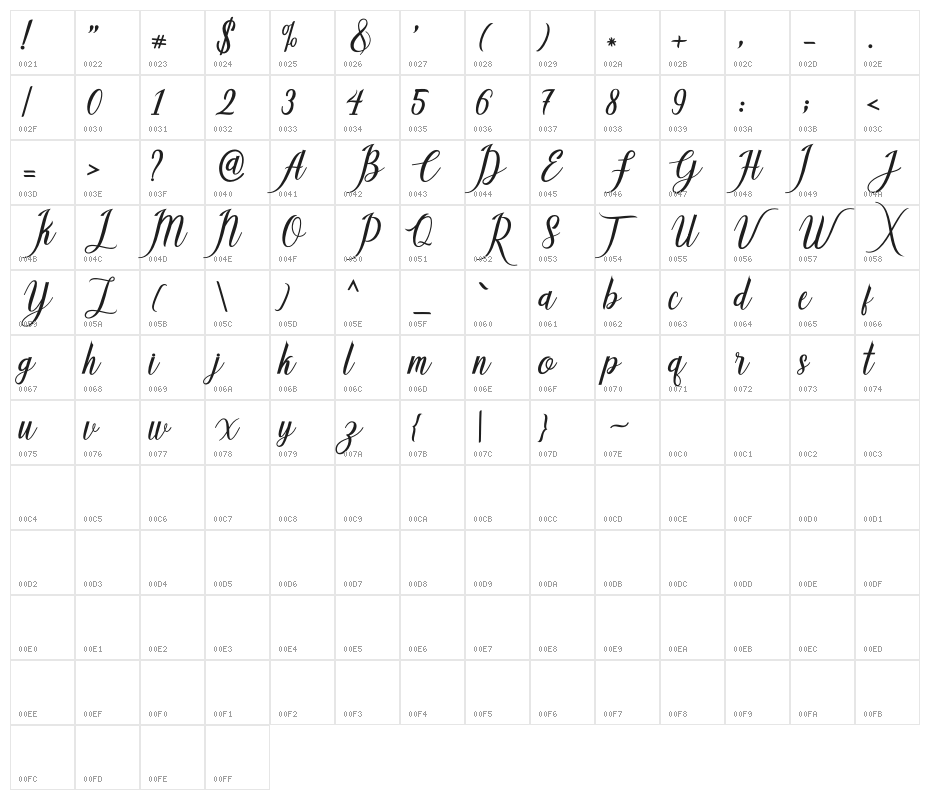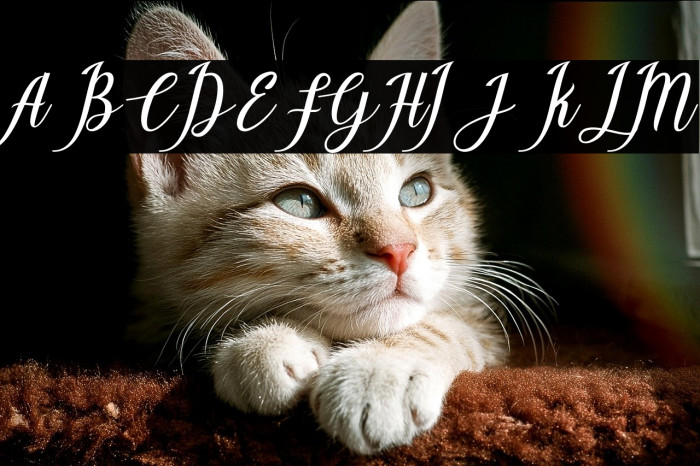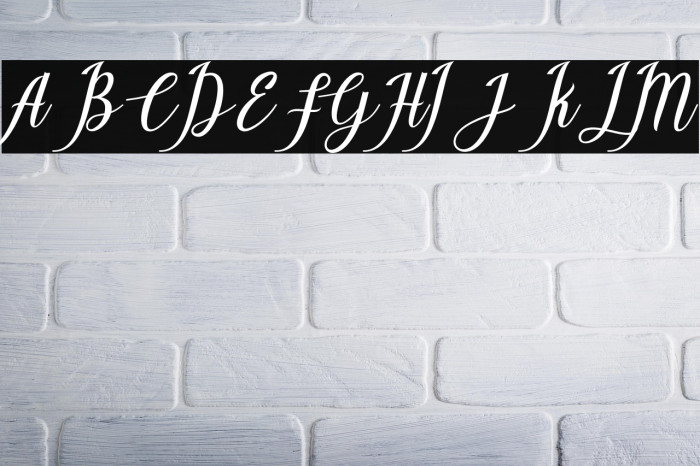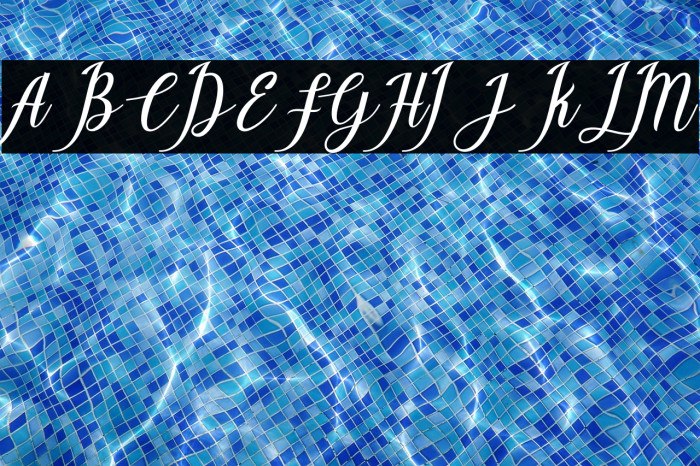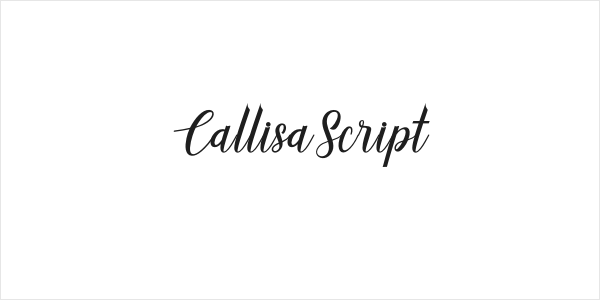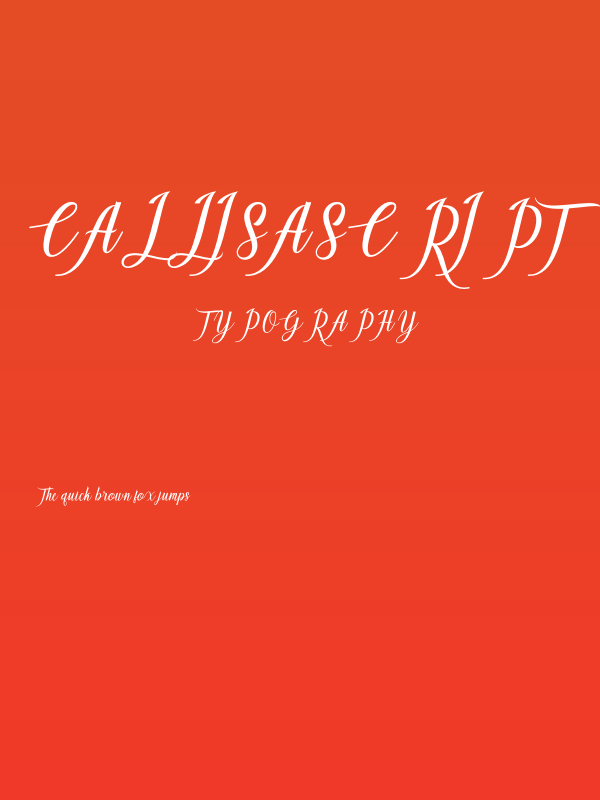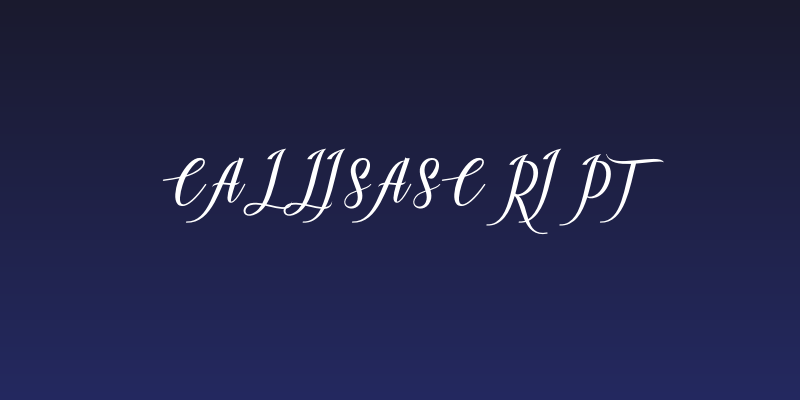
CallisaScript Font
CallisaScript Description
This elegant script font features flowing, connected letters with a calligraphic style. The uppercase characters are tall and graceful, with sweeping curves and flourishes that give them a sophisticated appearance. The lowercase letters are equally fluid, maintaining a consistent slant and smooth transitions between strokes. The numerals are stylish and complement the overall aesthetic, while the special characters add a touch of flair. This font exudes a sense of elegance and refinement, making it ideal for formal invitations, branding, and decorative purposes.
| Overall Style | Elegant, Calligraphic |
| Use Case | Headlines, Invitations, Branding |
| Proposed Projects | Ideal for wedding invitations, elegant branding, greeting cards, and decorative signage. |